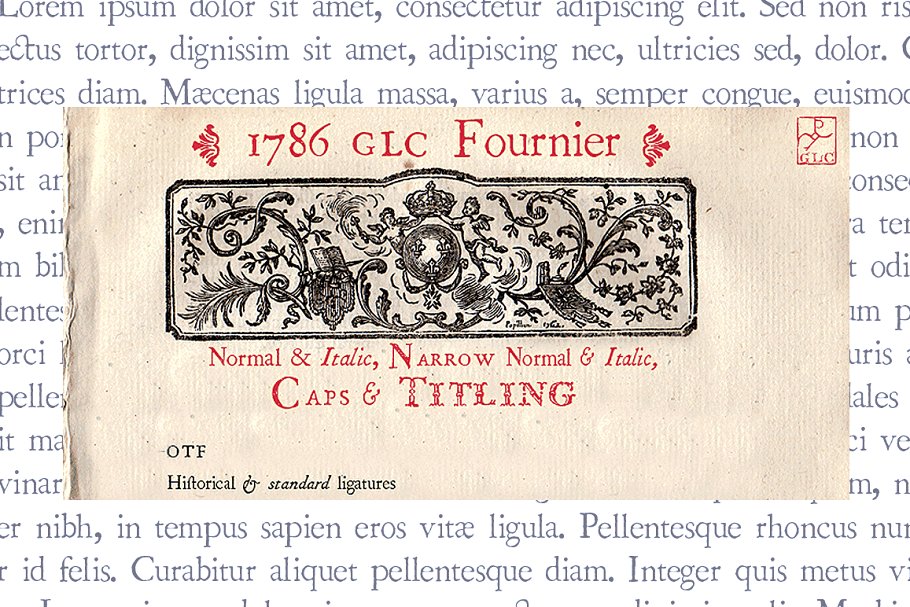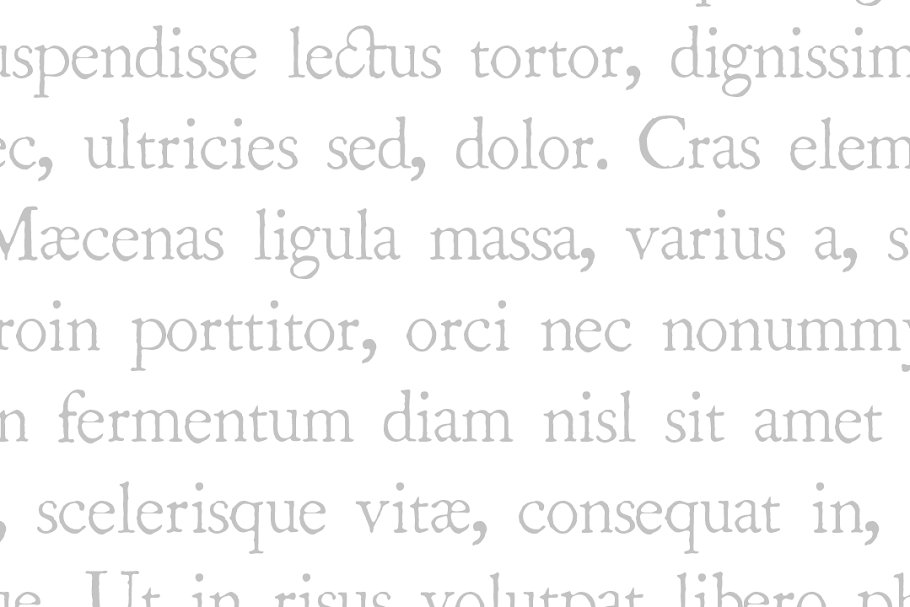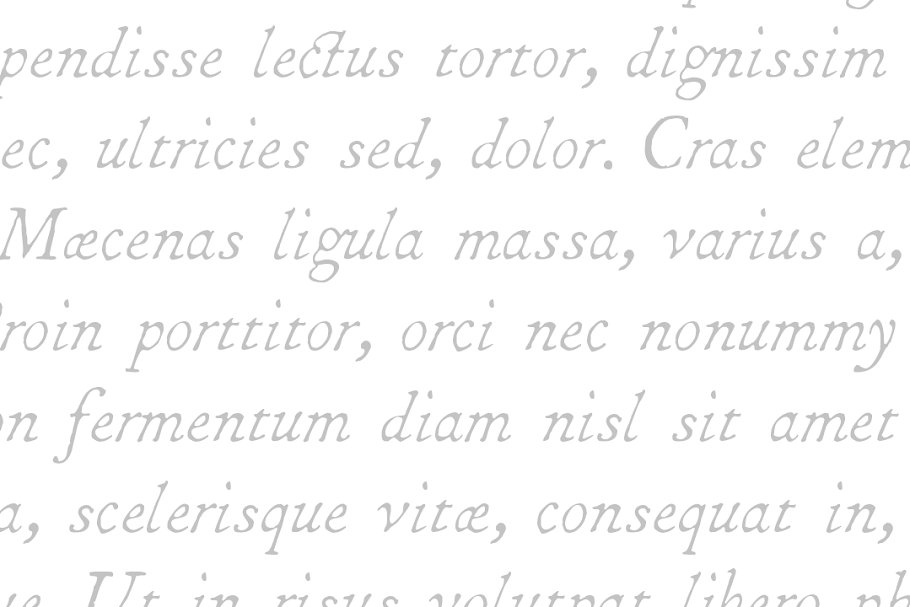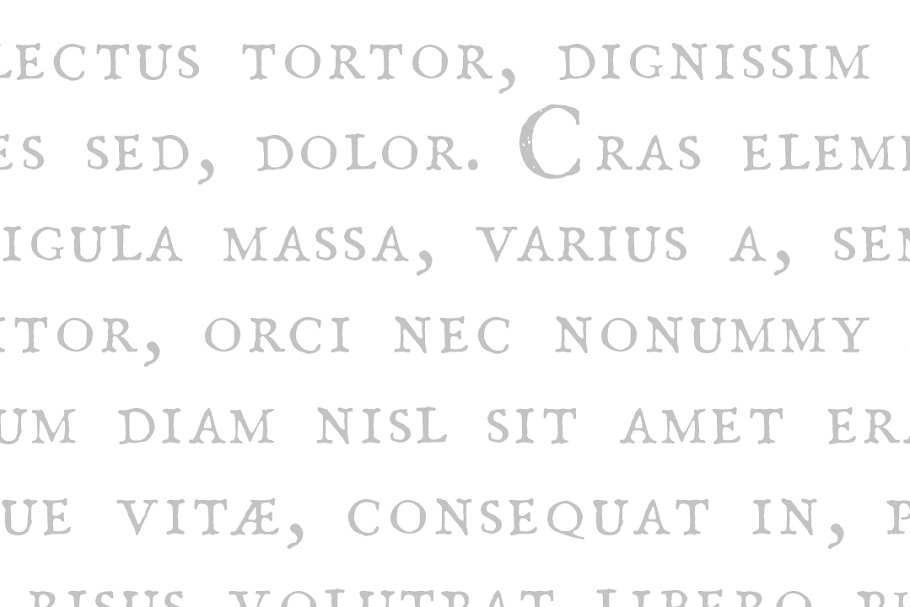
This family (six files) was created inspired from numerous documents and books printed in Paris during the end of the 1700s, Mainly, documents printed by P, G, Simon & N, H, Nyon, Printers of the parliament were used for the Normal and italic styles and Caps, Titling characters were coming from a collection of hymns printed by Nicolas Chapart, In France these Fournier’s characters, as Baskerville’s in Great Britain, were the most often in use in the late 1700’s, just before – and announcing – the Didot’s
This font supports strong enlargements, specially the capitals of Caps file and Titling, remaining very smart, elegant and fine,